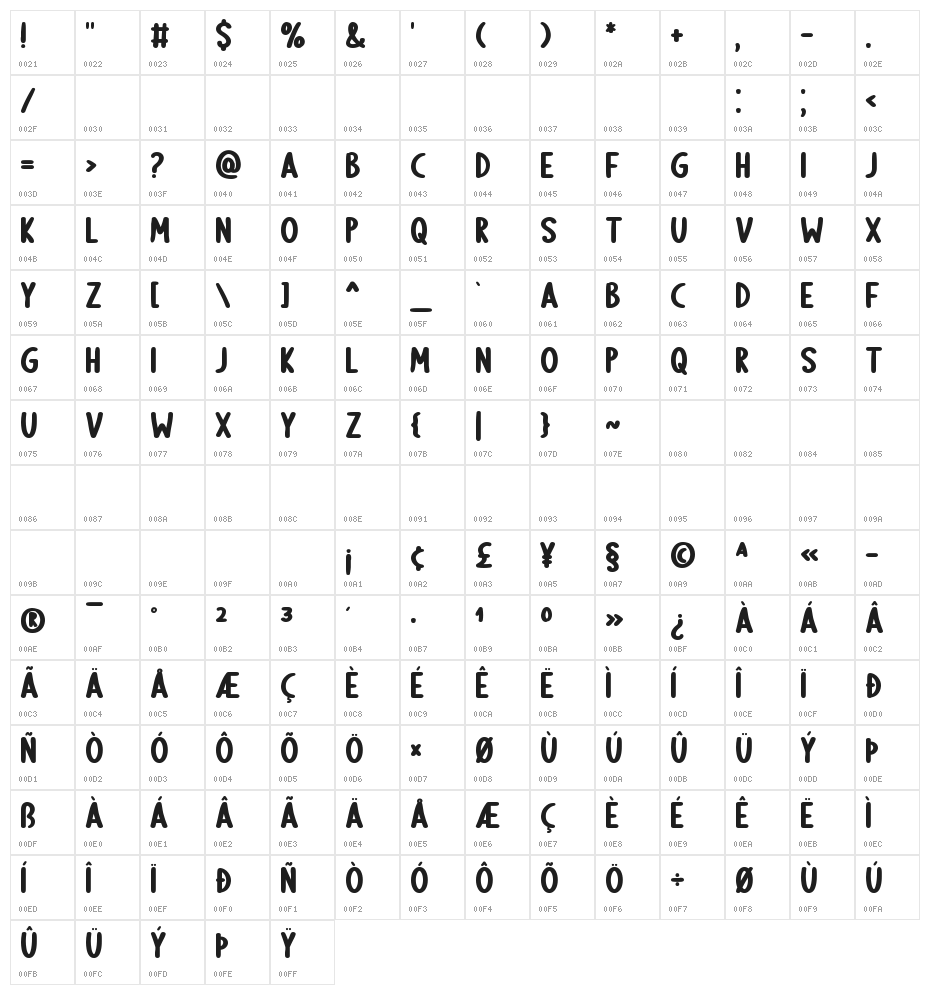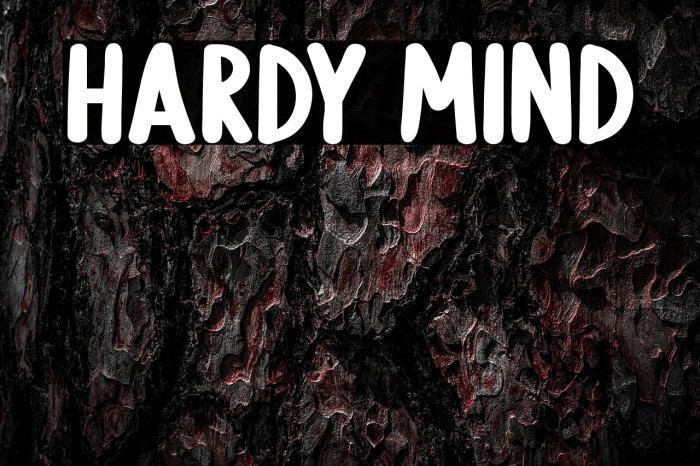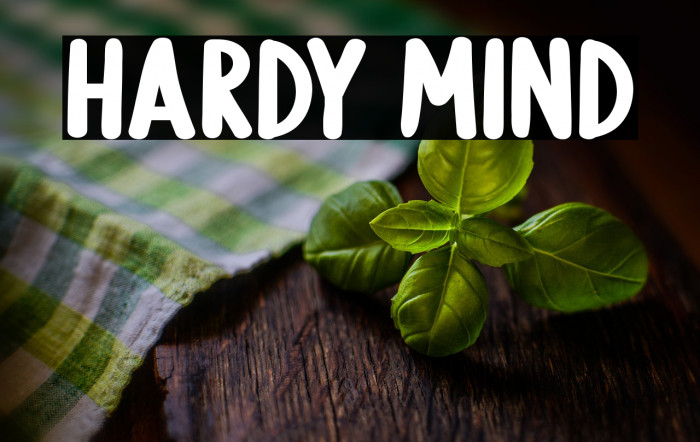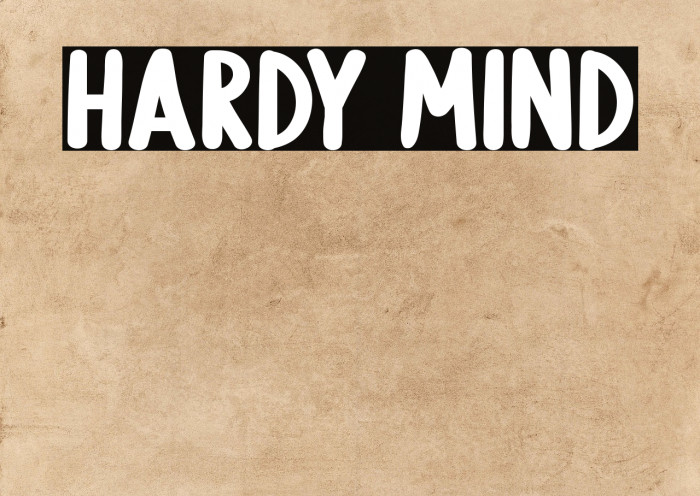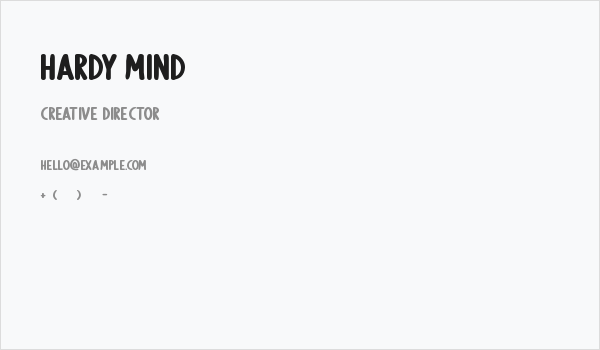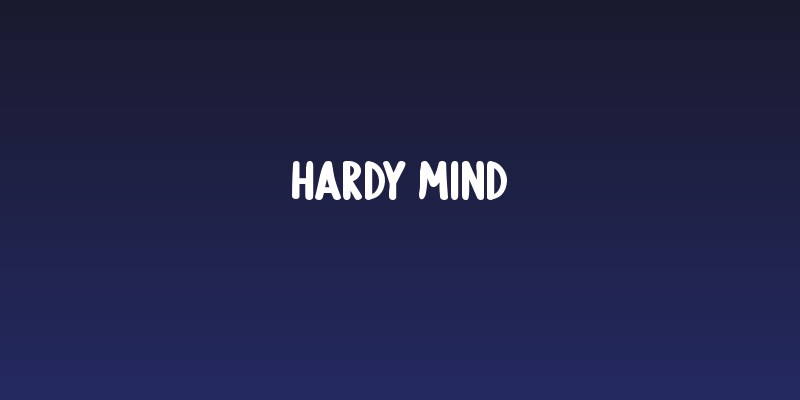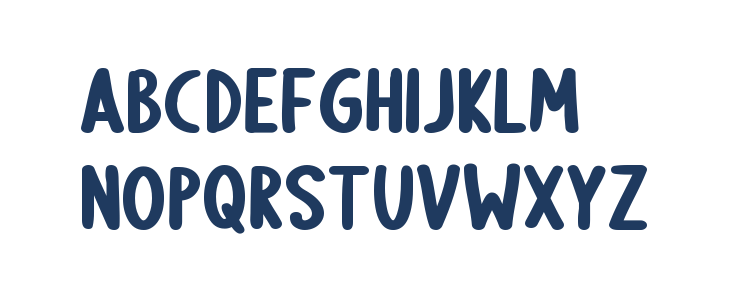
Hardy Mind Font
Hardy Mind Description
This font features a bold and playful style with rounded edges and a hand-drawn appearance. The characters are thick and slightly irregular, giving it a casual and friendly feel. The uppercase and lowercase letters maintain a consistent weight, while the numbers and special characters blend seamlessly with the overall design. The font's informal nature makes it suitable for projects that require a touch of whimsy and approachability. Its boldness ensures readability, even at smaller sizes, while the rounded forms add a sense of warmth and personality.
| Use Case | Logos, Headlines, Informal Text |
| Proposed Projects | Ideal for children's books, playful branding, greeting cards, and casual invitations. |